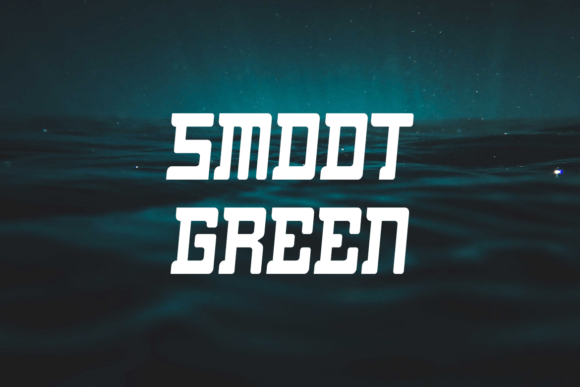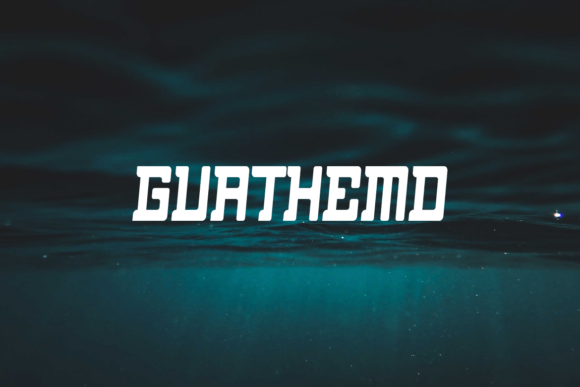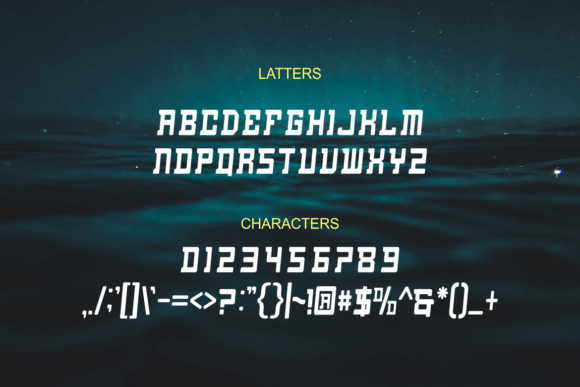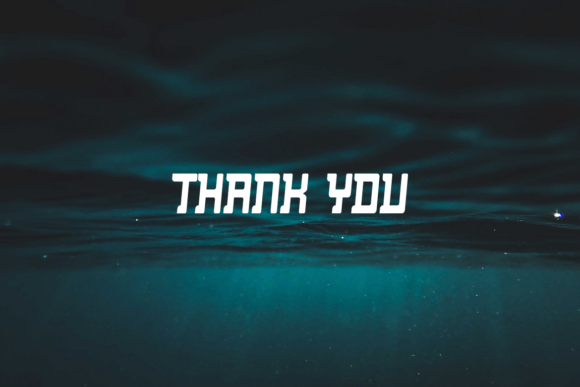
Introduction to Micksay Font Font
Fonts play a crucial role in design, and the Micksay Font font is a typeface that brings both character and versatility to any project. Whether you’re working on a branding project, a website, or a print design, the Micksay Font font offers a unique style that can elevate your work.
Micksay is a bold serif font with thick, strong letters.
Itβs perfect for making text stand out, giving it a classic and confident look Ideal for titles, headings, and logos.
Key Features of Micksay Font Font
Why Choose Micksay Font Font?
The Micksay Font font is more than just a typeface β it’s a design tool that helps you communicate your message with style and clarity. Its unique character set and versatile design make it suitable for a wide range of applications, from elegant invitations to bold headlines.
With its carefully crafted letterforms and balanced proportions, the Micksay Font font ensures readability and visual appeal across all mediums.
What makes Micksay Font font special?
The Micksay Font font stands out with its unique design, exceptional readability, and versatility across various design applications.